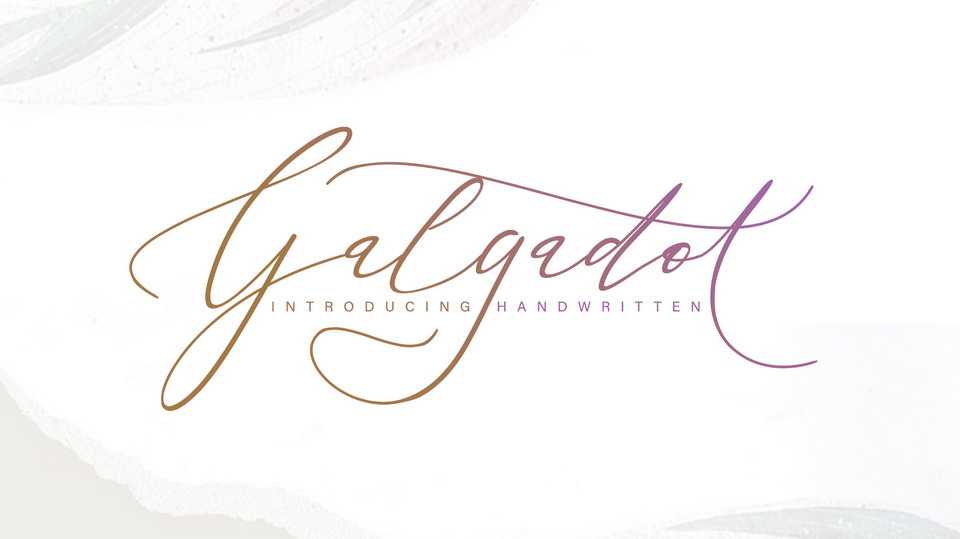
Downlod Galgadot font, a classy, fun and fabulous dreamy script inspired by luxury fashion. To keep it luxurious, the Galgadot Font contains 60 ligatures, 26 titling and 10 underscores.
Designer: Thomas Aradea